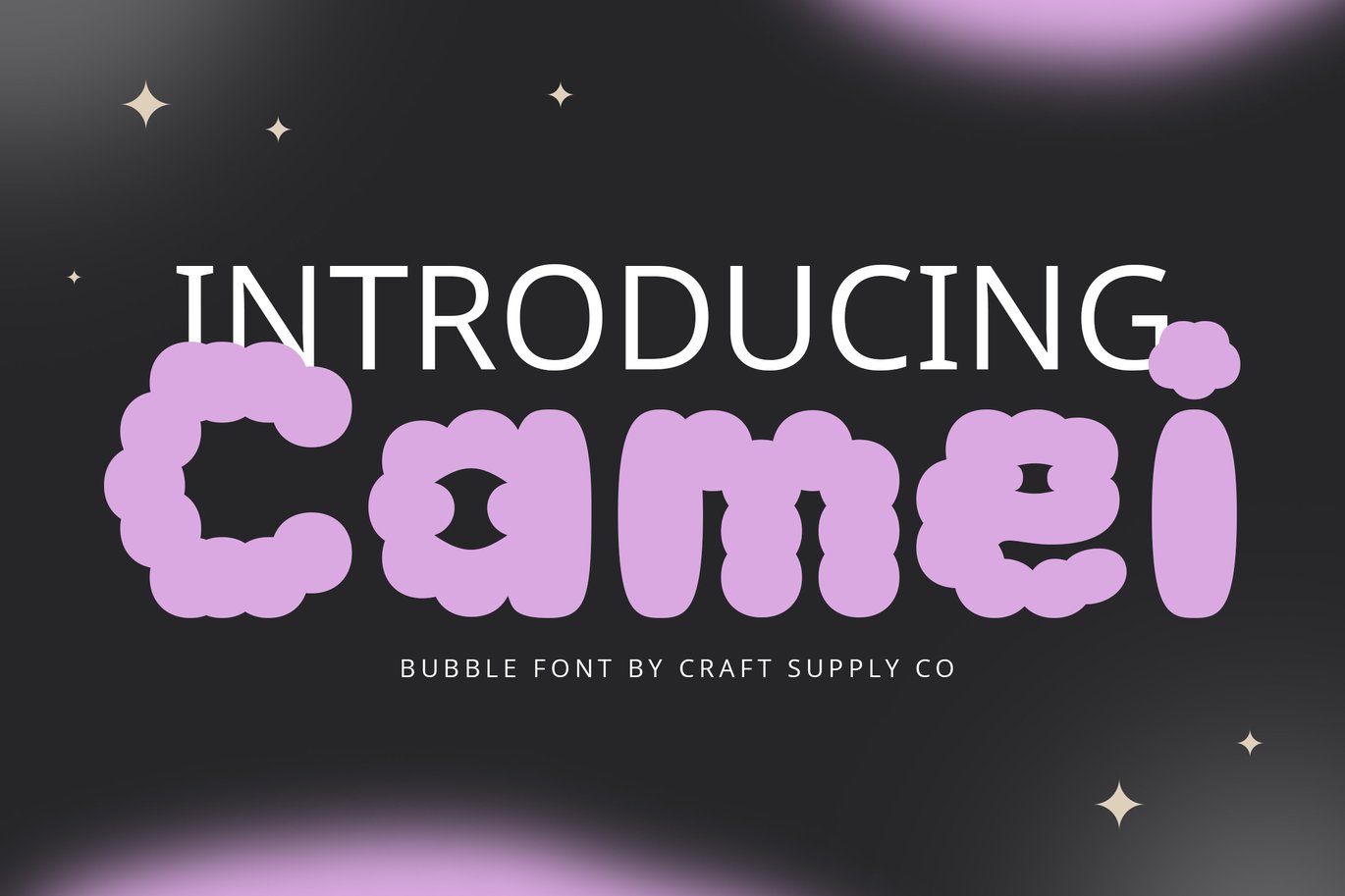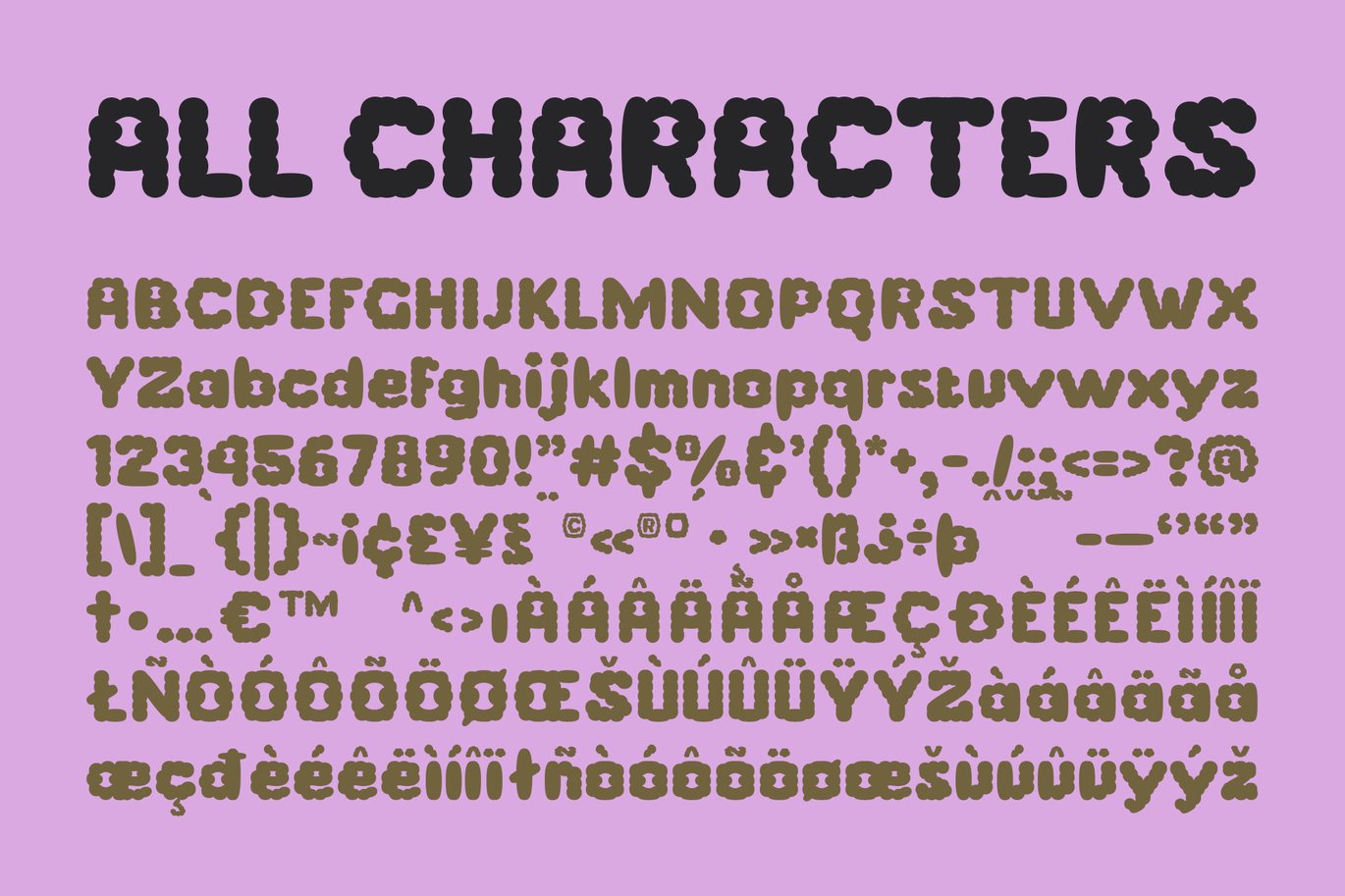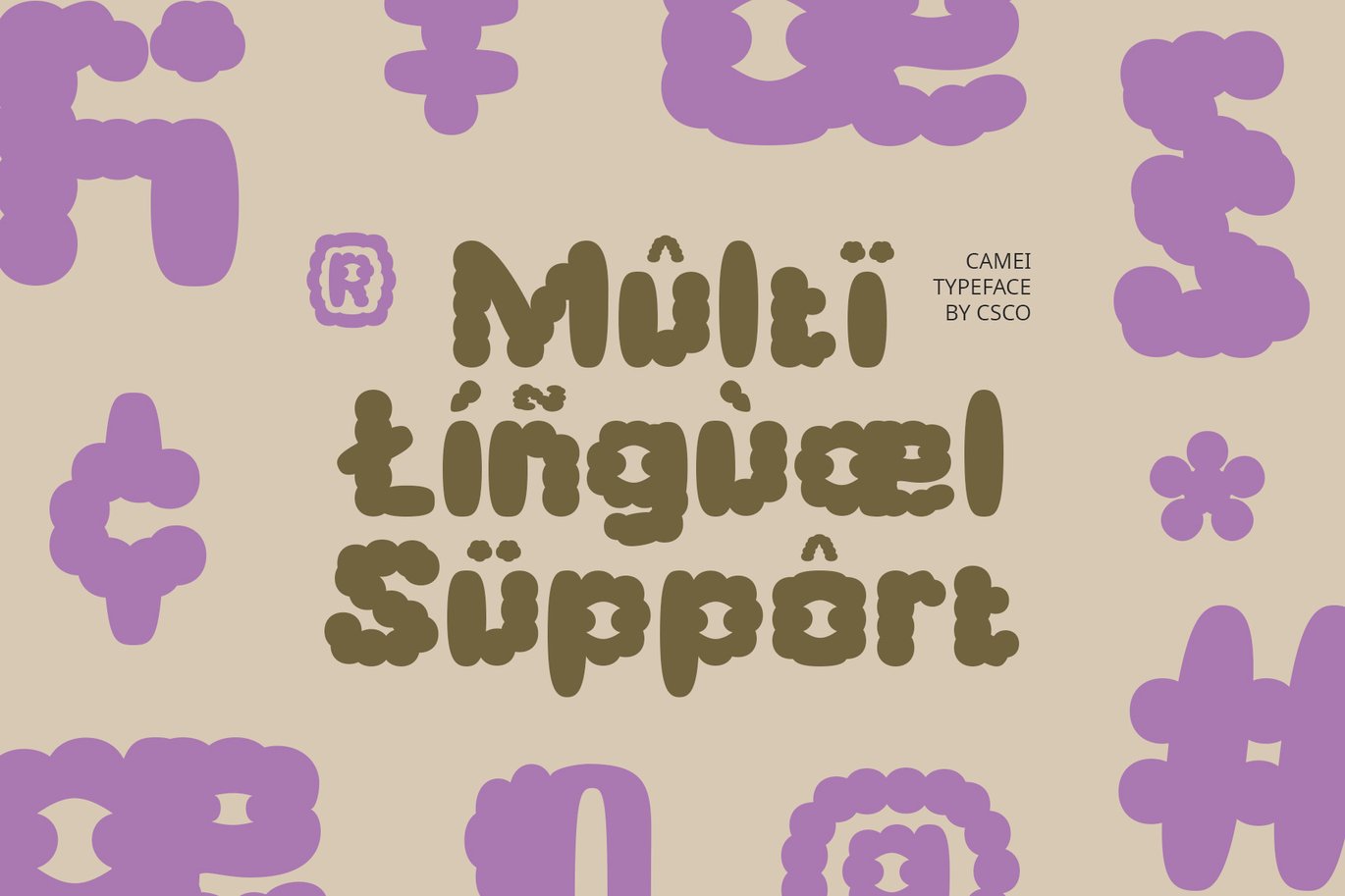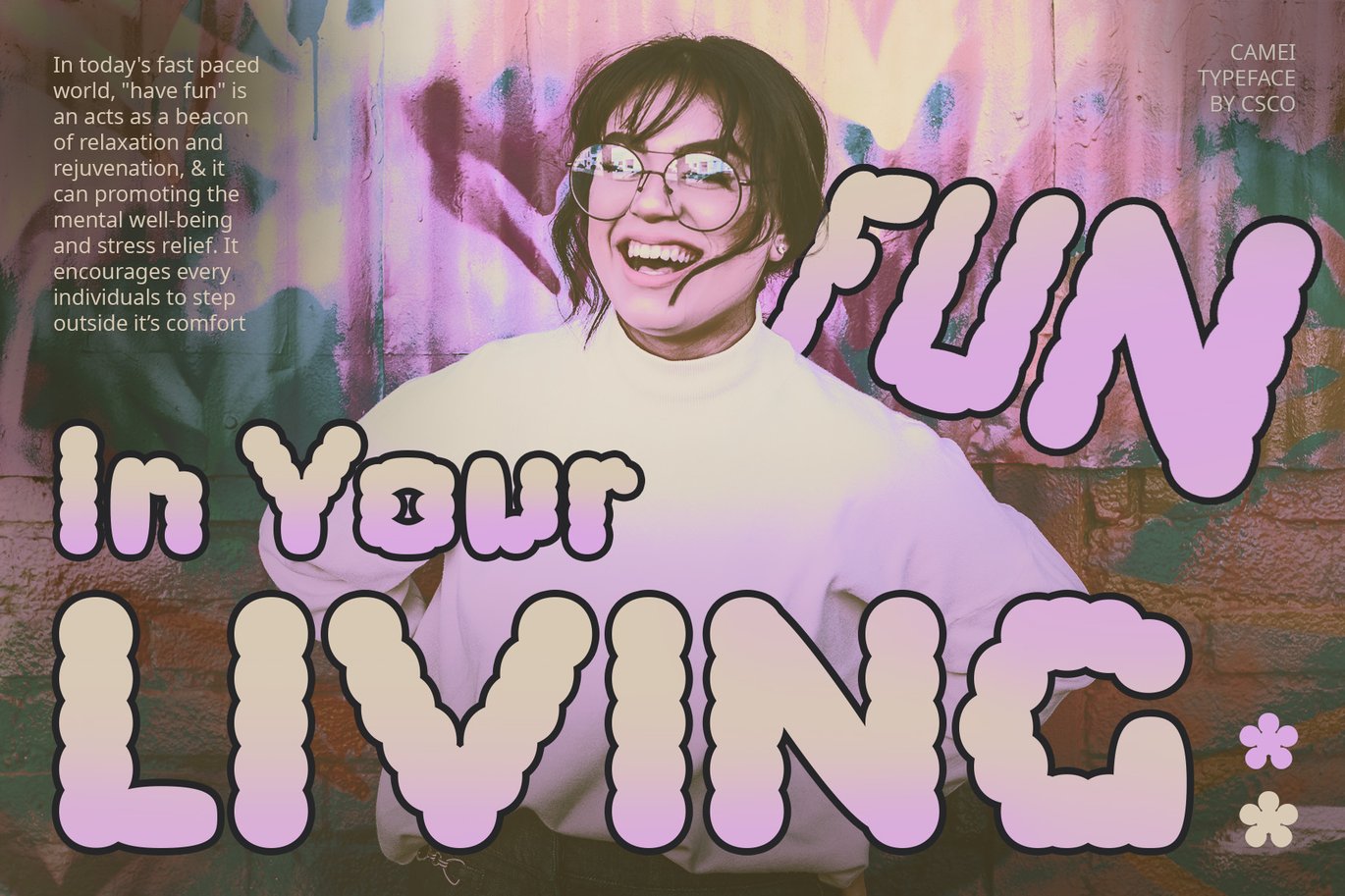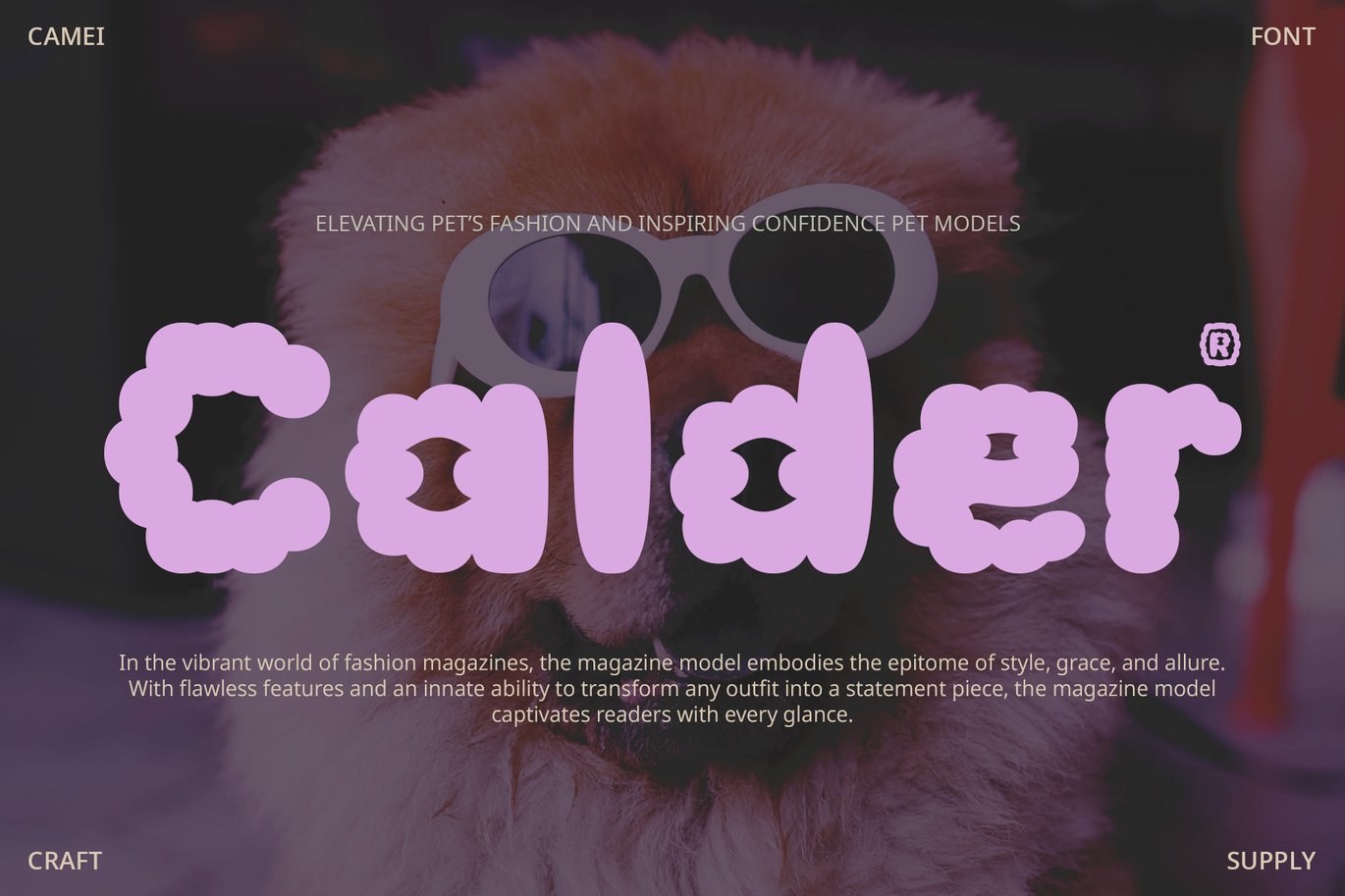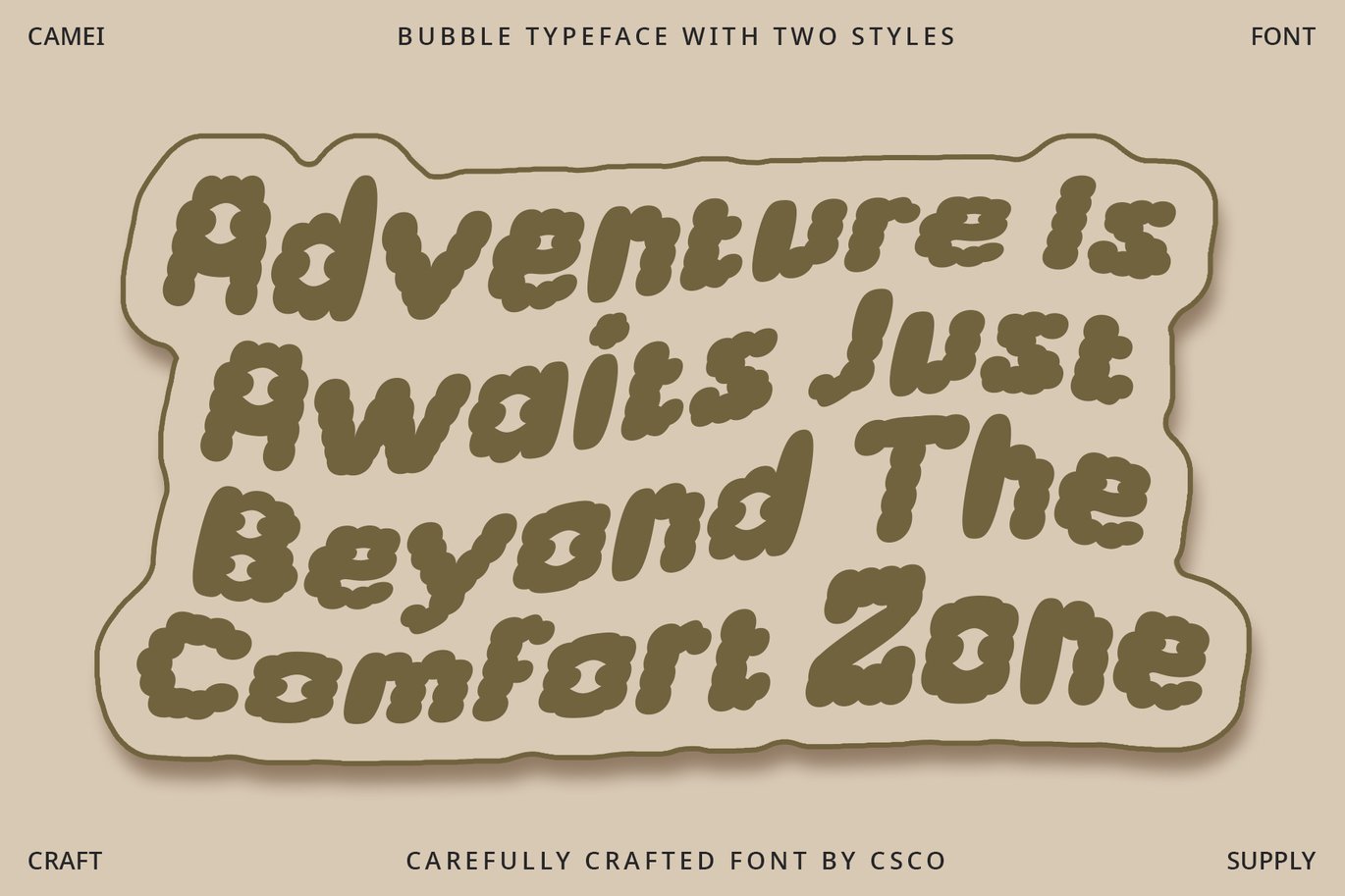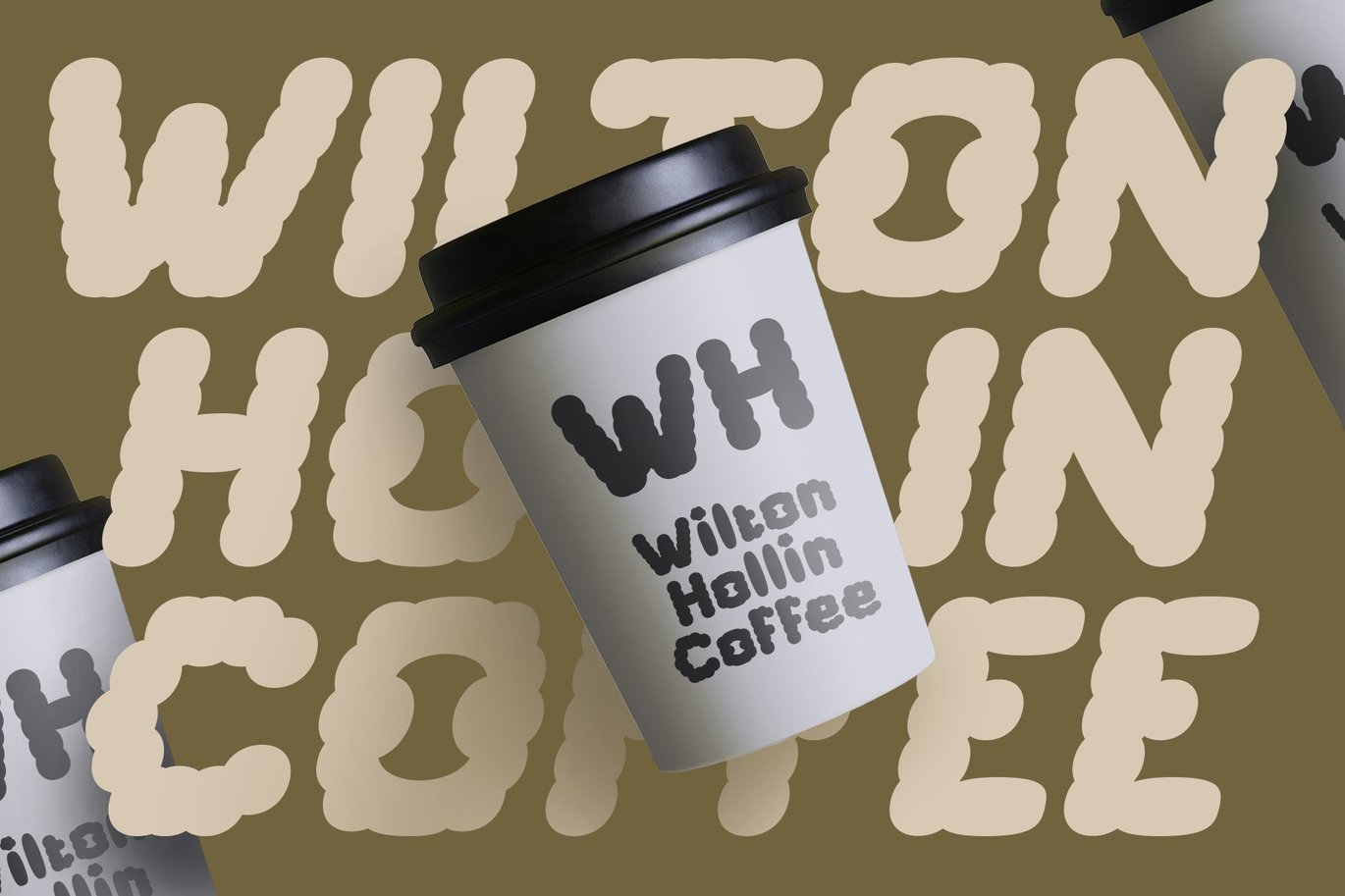
Camei – Bubble Font
Camei – Bubble Font: Cheerful and Unique Display Font
Cheerful and Unique
Camei is a bubble font, featuring cute and funky bubble shapes. This display font is perfect for designs aiming to convey a cheerful, cute, and unique impression, adding a playful touch to your projects.
Ideal for Captivating Designs
Perfect for headlines, banners, and other display purposes, Camei ensures your message is both seen and remembered. Its cute and funky bubble shapes make it a delightful choice for designs seeking to create a visually appealing and cheerful impression.
Versatile and Engaging
Despite its playful appearance, Camei remains versatile and engaging. Its display font format makes it suitable for a wide range of projects, from branding to digital designs, where a font that stands out is essential for making a statement.
Perfect for Adding a Playful Touch
Camei is ideal for projects requiring a font with a playful touch. Whether you’re designing a poster, logo, or website, this font will undoubtedly add a distinct and memorable element to your designs.